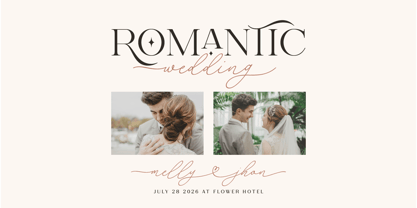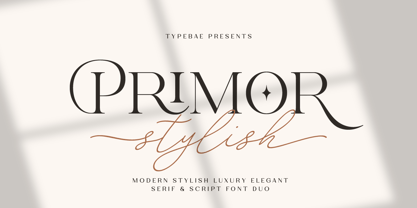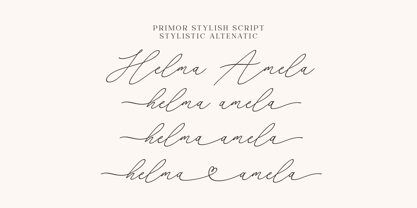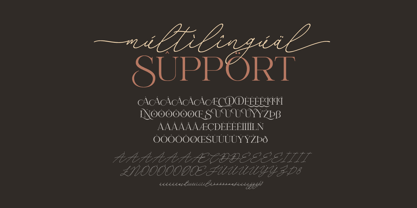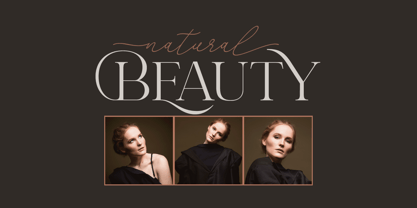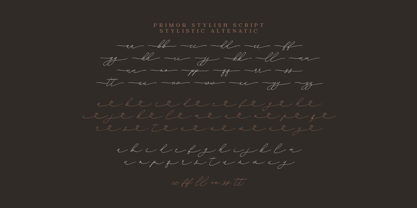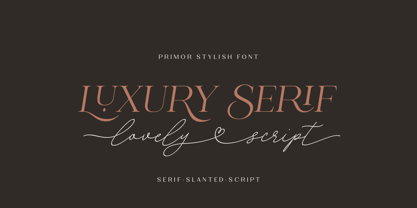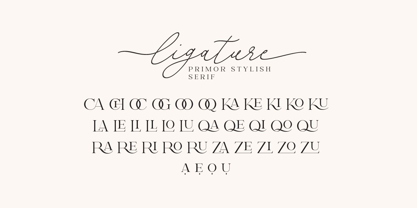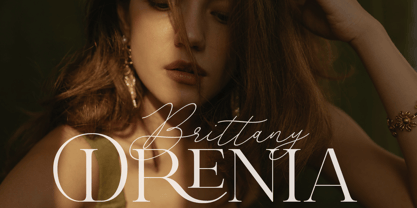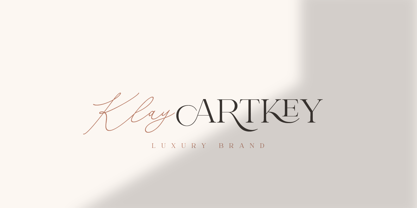
Primor Stylish
by Typebae
Primor Stylish blends a timeless luxury serif with a romantic handwritten script. Designed for high-end branding, wedding stationery, and elegant editorials, it offers balance between sophistication and creativity. Each style includes refined ligatures and alternates that add charm to logos, packaging, and magazine titles. With graceful details and premium letterforms, Primor Stylish brings classic beauty to every visual identity. Features: 100+ ligatures & alternates Uppercase, lowercase, punctuation, multilingual support PUA encoded for full compatibility
Designers: Iqbal Pauji
Foundry: Typebae